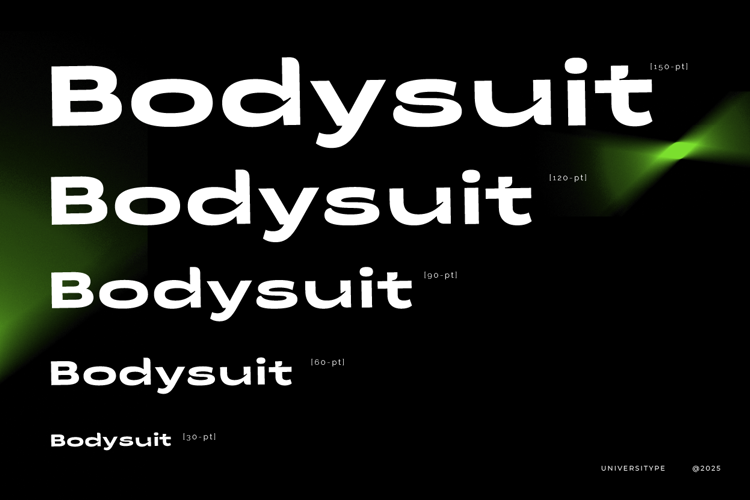
UT Zinga Font
UT Zinga is an expanded display typeface built for impact. It blends brutalist, industrial structure with fluid, almost liquid motion—resulting in letterforms that feel tense, energetic, and alive. Defined by aggressive inktraps and sweeping wave-like terminals, Zinga doesn’t sit quietly on the page. It hums, pushes, and pulls attention.
Its wide stance and heavy horizontal stress give it a futuristic, techno-leaning presence, perfect for designers who want to escape predictable sans-serif territory and lean into something louder, stranger, and sharper.
Inspiration Behind the Design :
UT Zinga pulls from Y2K cyber optimism and modern Acid Graphics. The core idea was controlled chaos—starting from a heavy geometric base, then selectively “melting” key points to suggest speed, pressure, and flow. Traditional inktraps, once a printing necessity, are pushed into the spotlight as a deliberate, futuristic design statement.